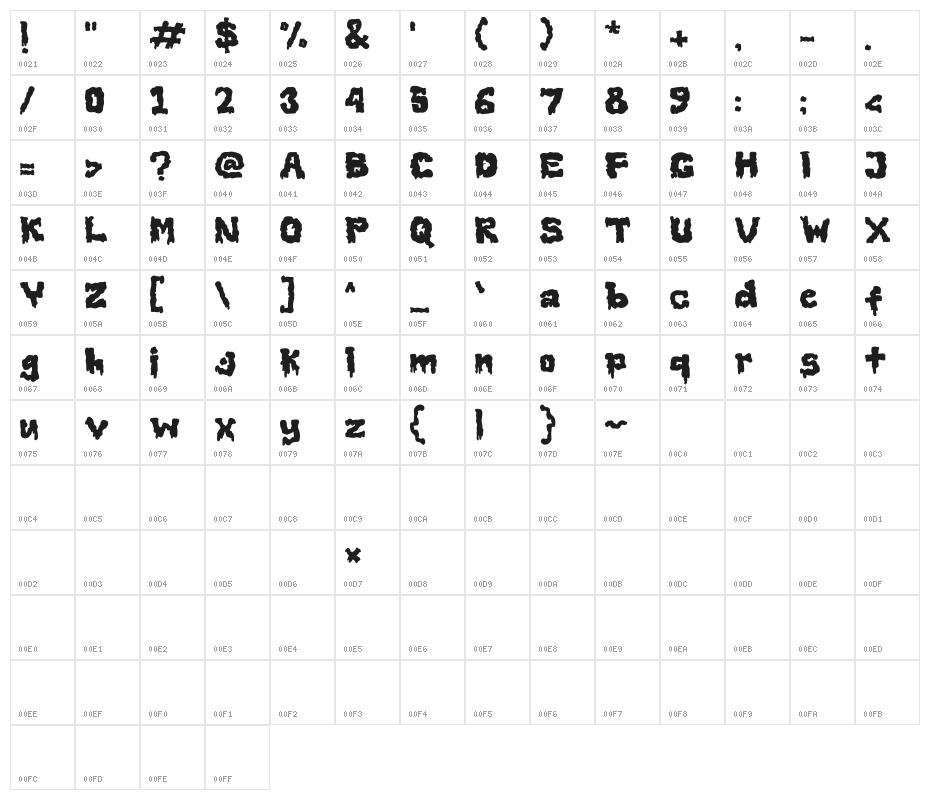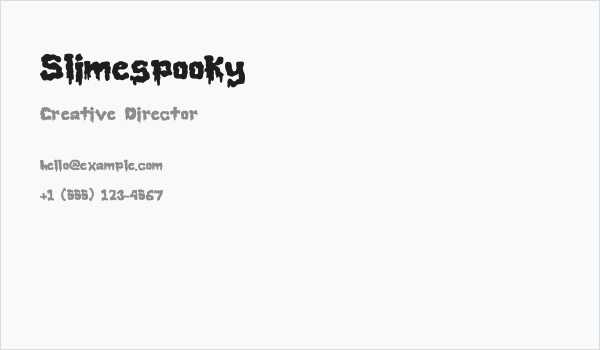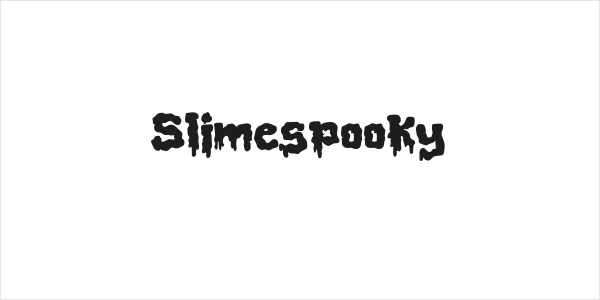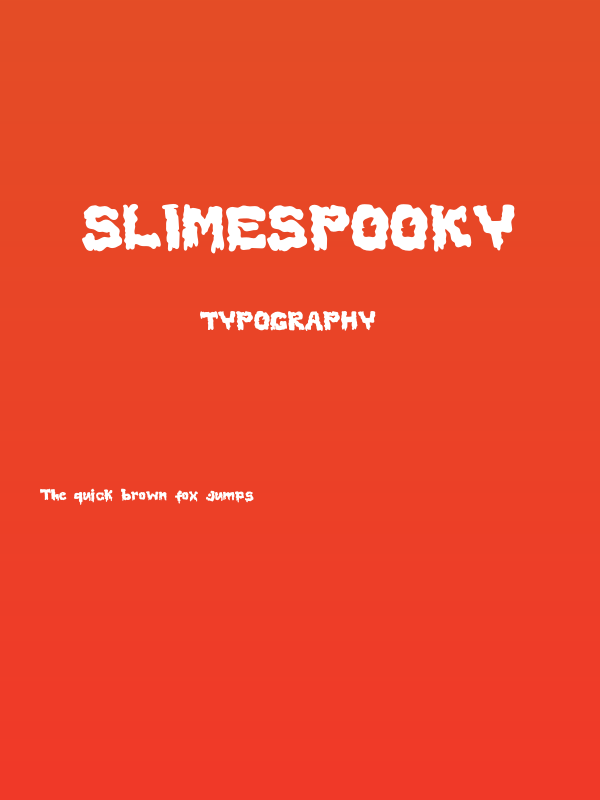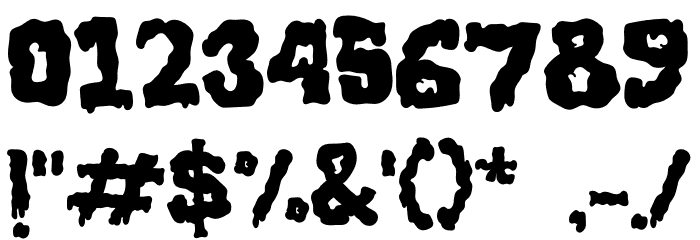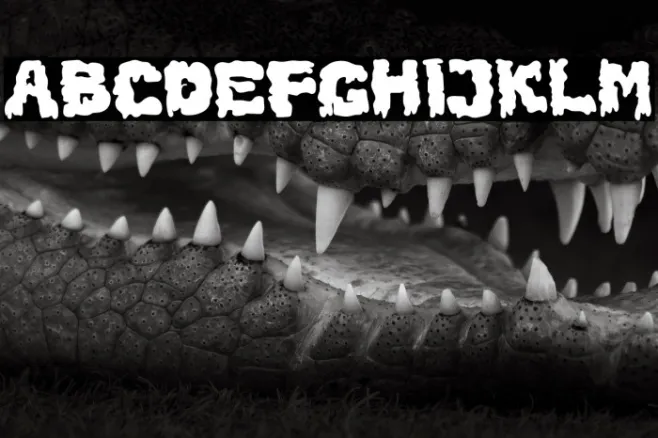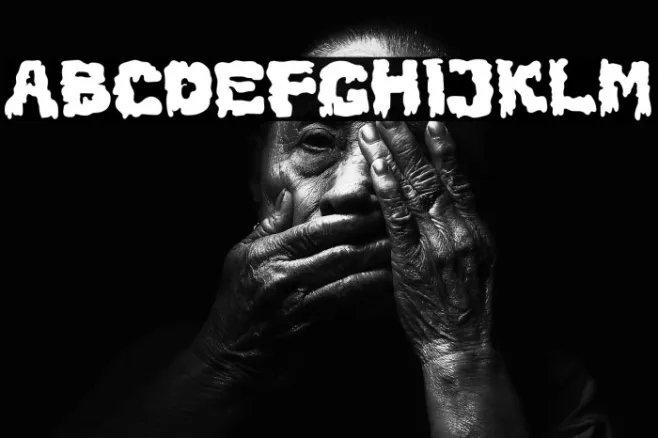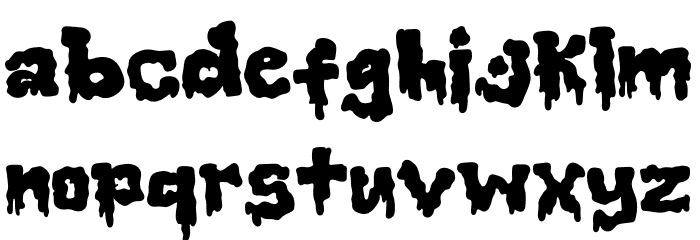
Slimespooky Font
Slimespooky Description
This font features a playful and spooky design, reminiscent of dripping slime or melting wax. The characters are bold and irregular, with uneven edges that give them a dynamic and fluid appearance. The uppercase and lowercase letters maintain a consistent style, with exaggerated curves and a slightly chaotic feel. Numbers and special characters follow the same theme, making the font ideal for Halloween-themed projects or anything requiring a creepy, fun vibe. The overall look is both eye-catching and whimsical, perfect for grabbing attention.
| Use Case | Headlines, Posters, Themed Events |
| Proposed Projects | Perfect for Halloween invitations, horror movie posters, themed party decorations, or any project needing a spooky, playful touch. |